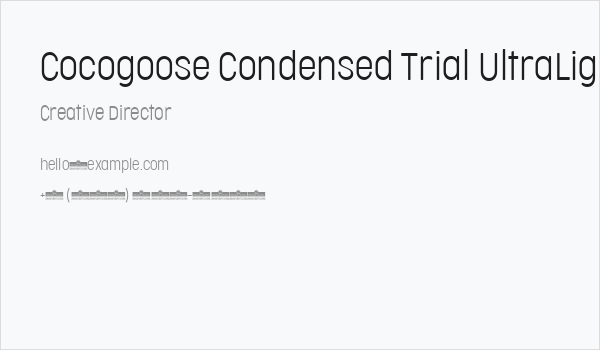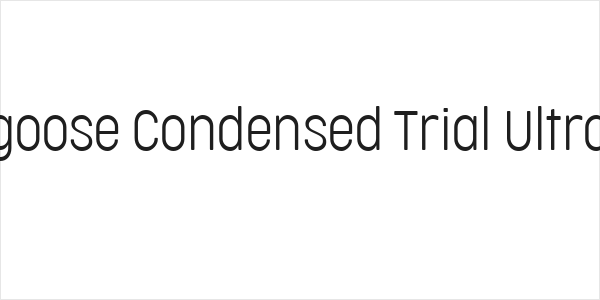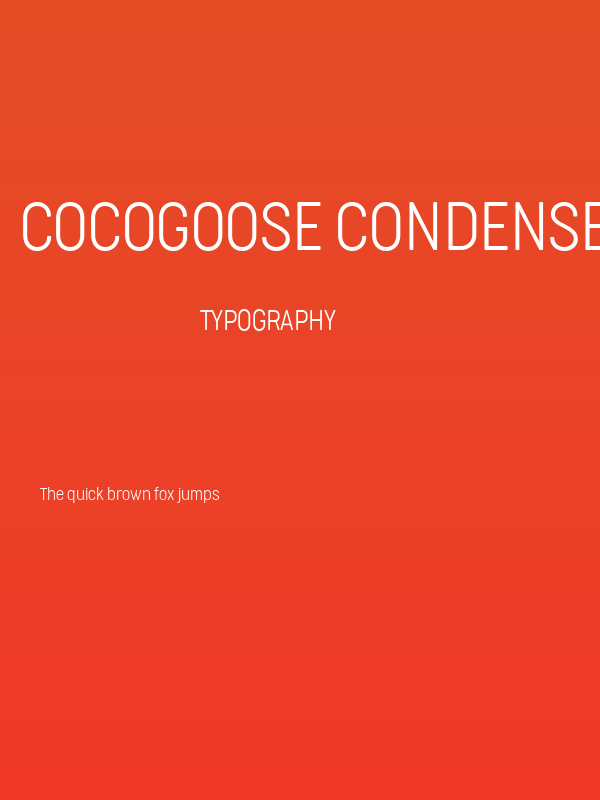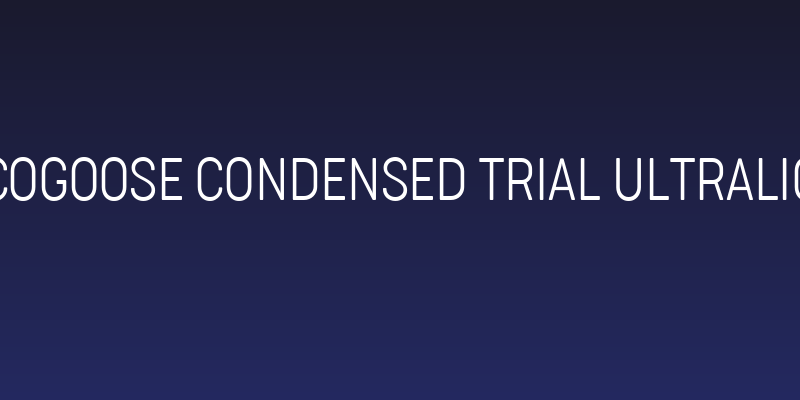
Cocogoose Condensed Trial UltraLight Font
Cocogoose Condensed Trial UltraLight Description
This font features a sleek, modern design with a condensed structure that gives it a streamlined appearance. The ultra-light weight adds a sense of elegance and sophistication, making it ideal for contemporary design projects. The characters are clean and minimalistic, with a uniform stroke width that enhances readability. The uppercase and lowercase letters are well-proportioned, and the numerals are clear and distinct. Special characters are included, maintaining the overall aesthetic. This font is perfect for projects that require a modern and professional look.
| Proposed Projects | Ideal for branding, editorial design, web design, and advertising where a modern and clean aesthetic is desired. |